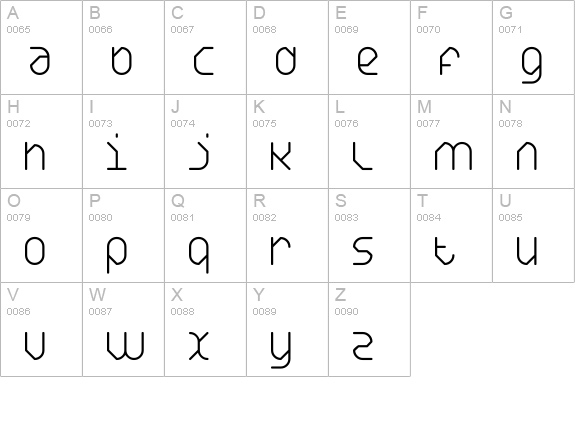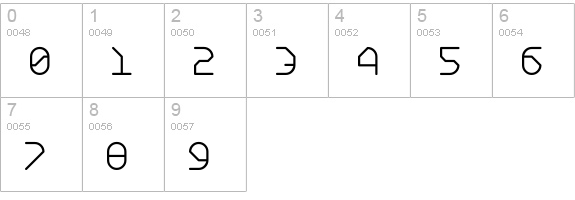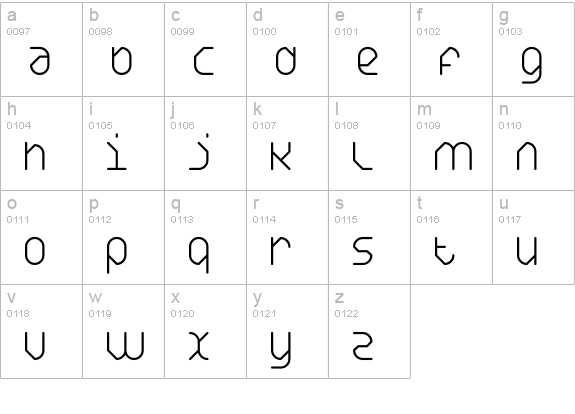
DS Yakuti45R Font Details
DS Yakuti45R is a stunning and versatile font that exudes elegance and sophistication. With its clean lines and modern aesthetic, this typeface is perfect for a wide range of design projects, from branding to editorial design. The unique letterforms of DS Yakuti45R are sure to make your text stand out and capture the attention of your audience. The best part? DS Yakuti45R is completely free to download at FontsMarket.com! That's right, you can elevate your designs with this beautiful font without spending a dime. Whether you're a seasoned designer looking for a fresh new typeface or a newcomer exploring the world of typography, DS Yakuti45R is a fantastic choice that won't break the bank. Download DS Yakuti45R today and take your designs to the next level with this stunning and free font.